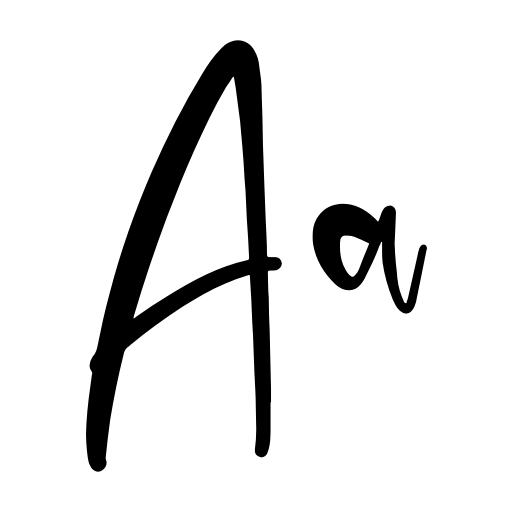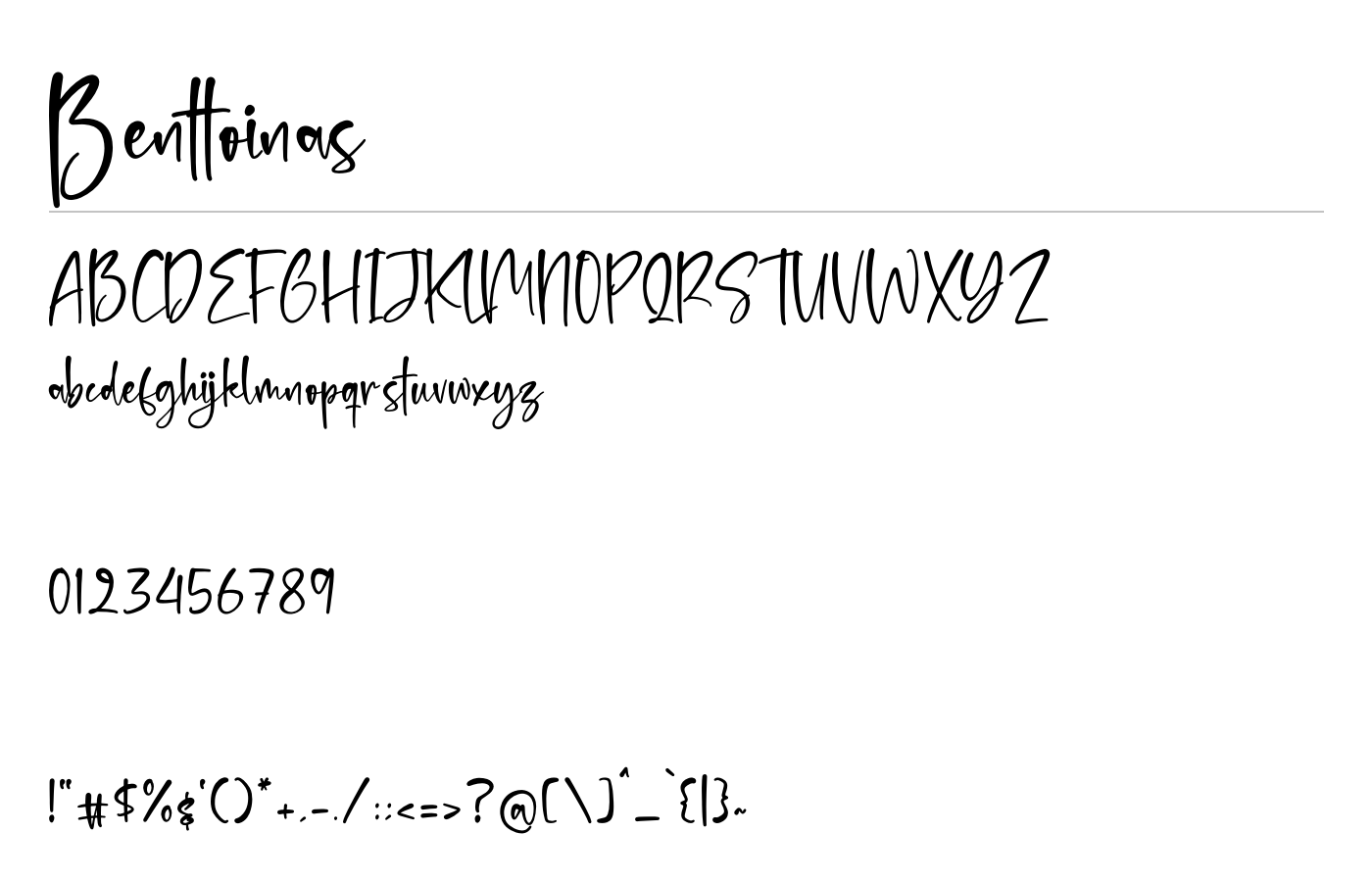
Benttoinas is a playful and casual handwritten font with a tall, narrow appearance and lively, organic strokes. Its uneven lines and distinctive letter shapes give it a friendly, personal feel, making it ideal for creative projects, invitations, and branding that seeks an approachable, artisanal vibe. This font works best in headlines and decorative text where its unique personality can really shine.
Benttoinas Font
About Benttoinas Font